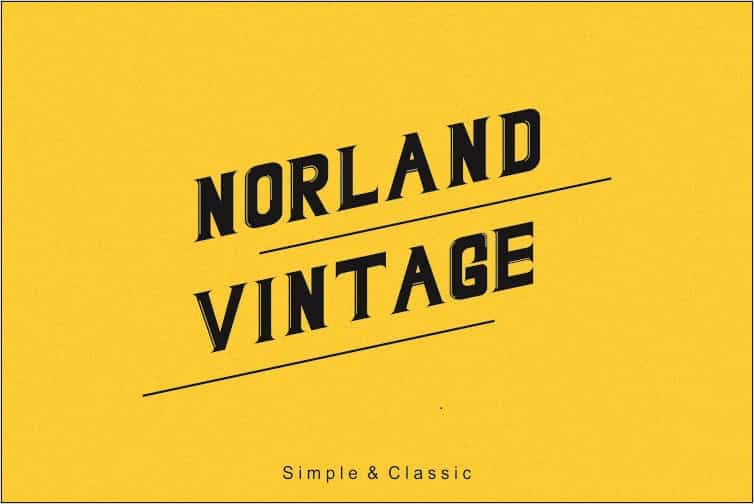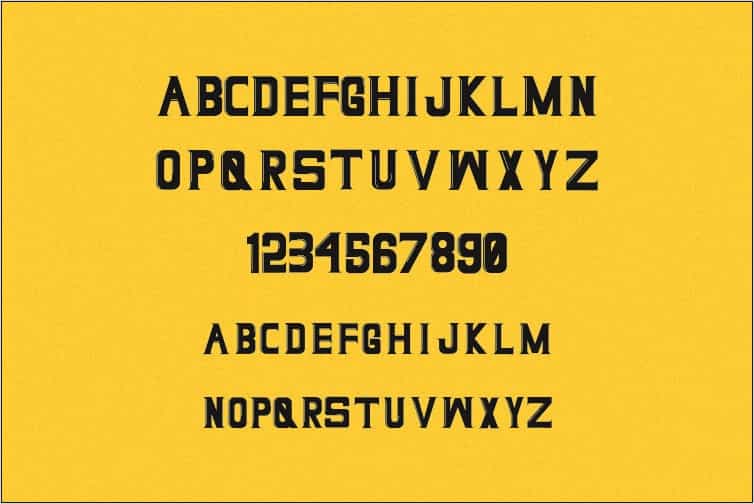
Norland Vintage can be described as an impressive and retro-looking serif font. It will add flair and personality to your casual or formal designs and you will be left speechless by its results.